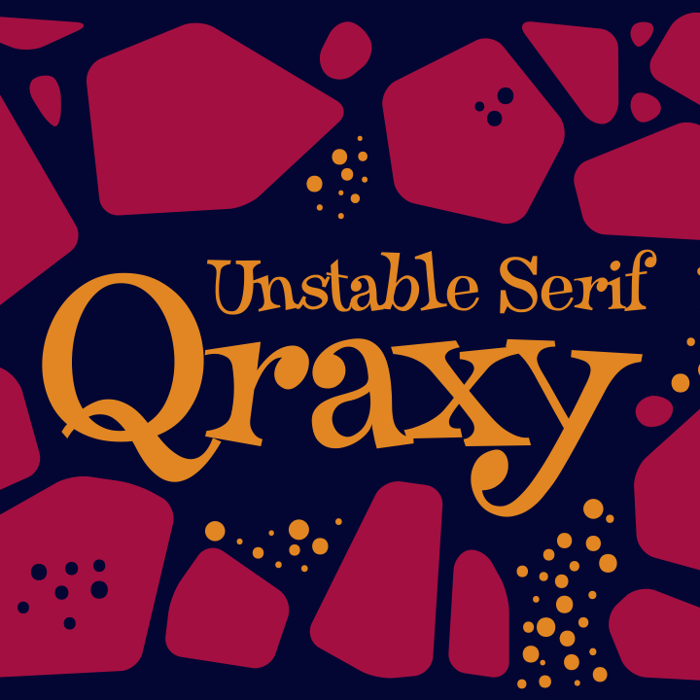
Qraxy Font
almost 7 years agoI agree with the above comment. It’s whimsical and good for something light-hearted and fun. Thinking of using it for my boat that I’m naming Naut Krazy.
I love this one. Got a fun, cartoon feel to it, but is still very easy to read.